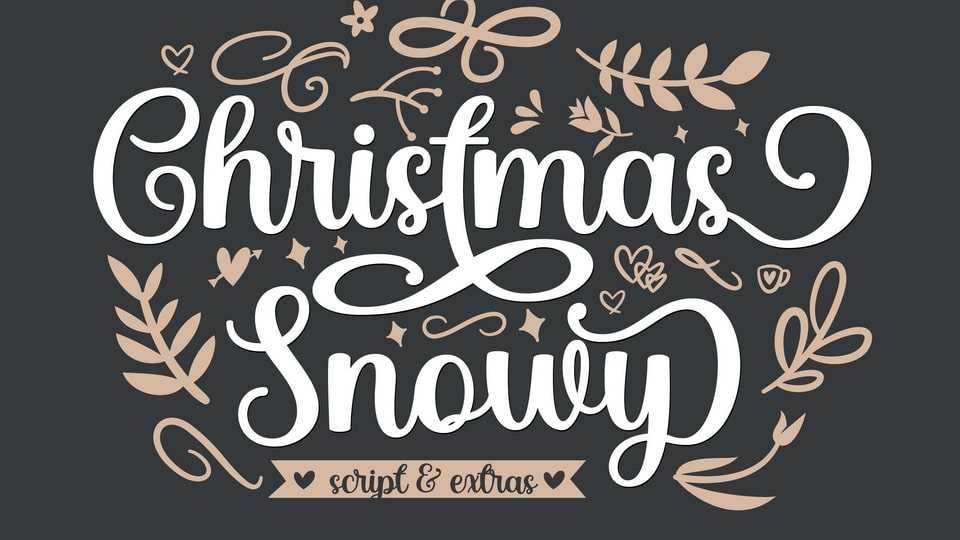
Download Christmas Snowy font, a delicate, elegant and flowing handwritten typeface. Christmas Snowy font has beautiful and well balanced characters and as a result, it matches a wide pool of designs.